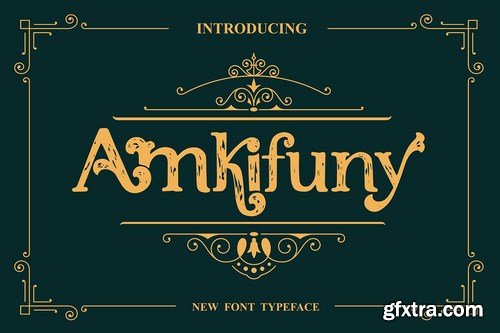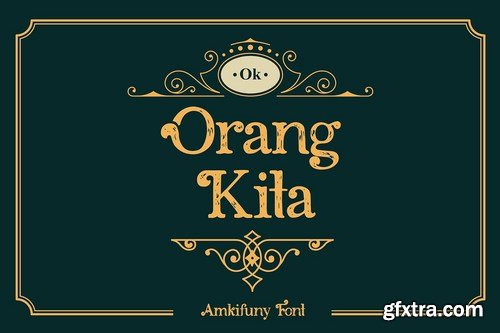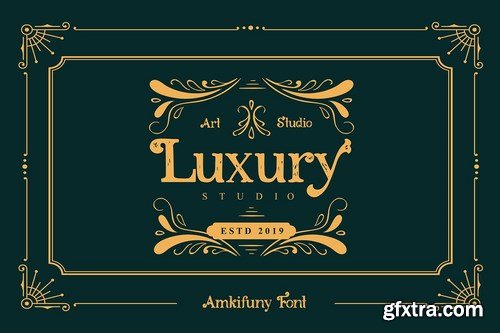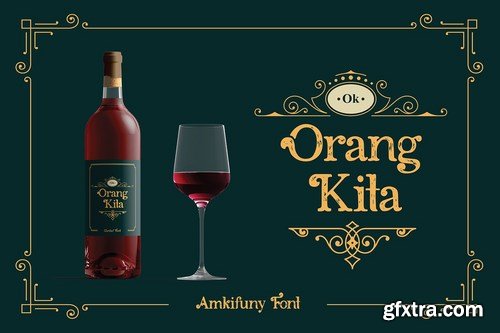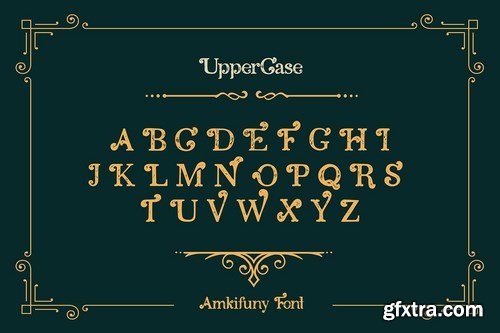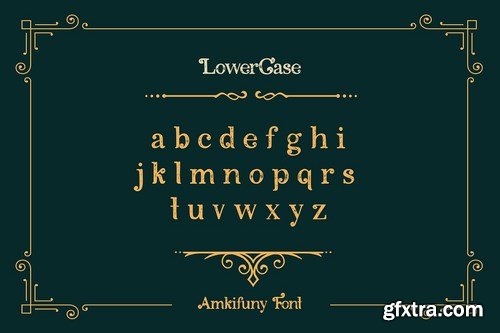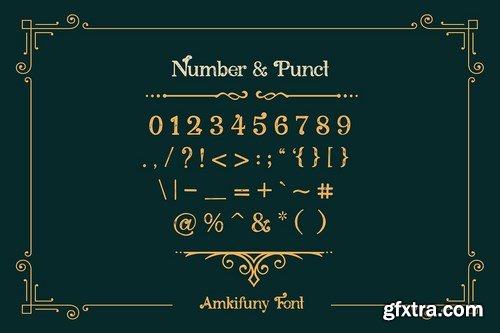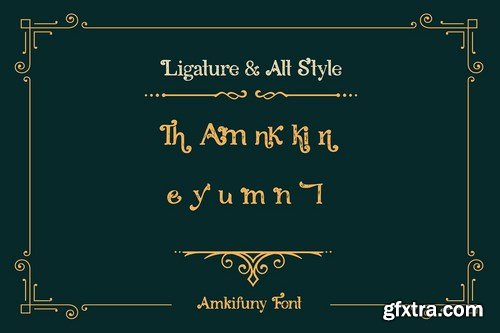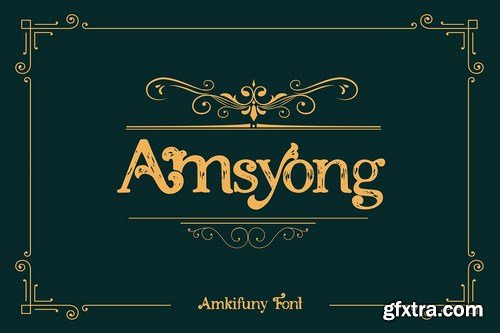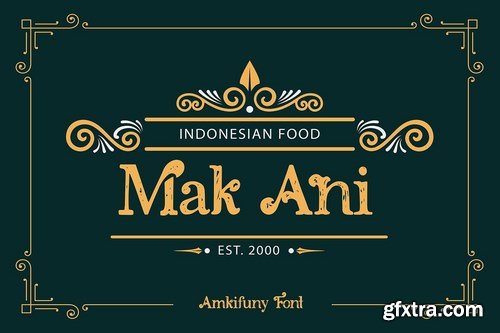
Unique, playful and versatile serif family with ligatures and alternates that you can combine to get curves and beautiful shapes just in seconds.
This font is suitable for use in many design forms, for example magazines, postcards, logos, DIY Projects, invitation card, quotes, vintage look design, old classic ,60s, 70s, 80s era, wedding projects and much more. We recommend using Adobe Illustrator or Photoshop. This Font Include: OTF TTF WEB FONT Ligatures Alternates Multilingual Support Easy to instal Mac and Windows